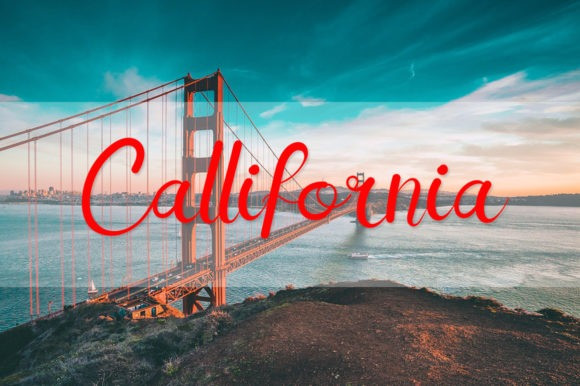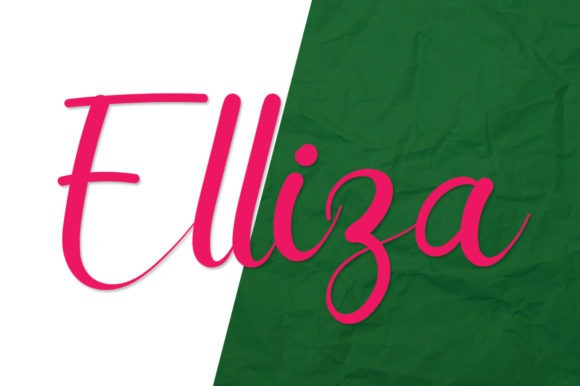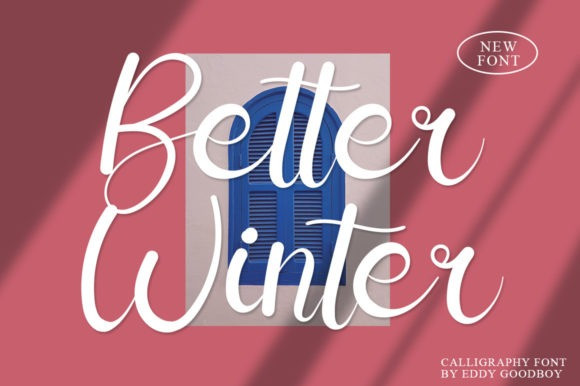
Better Winter Font
Better Winter Script Font is a delicate, elegant and flowing handwritten font. It has beautiful and well balanced characters and as a result, it matches a wide pool of designs. Add it to your most creative ideas and notice how it makes them come alive!